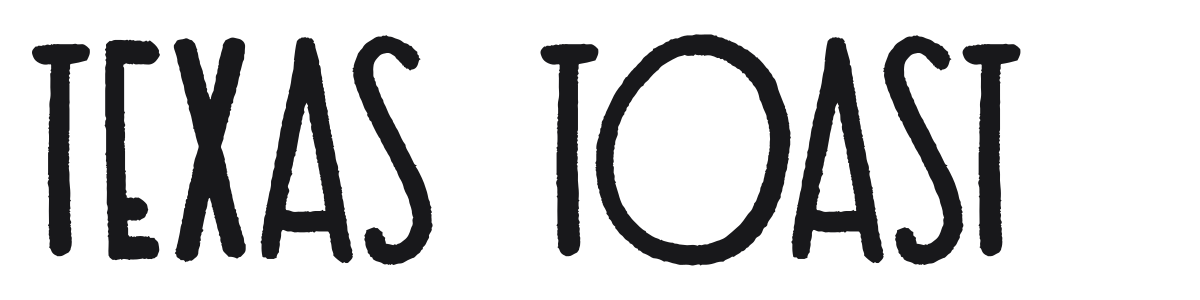
Texas Toast
Texas Toast is a tall, condensed uppercase face from MakeMediaCo. with a hand-drawn looseness that keeps it from feeling rigid despite its narrow proportions. The letterforms have a quirky, slightly wobbly quality, like someone lettered a diner sign freehand and just went with it. Best used for headlines, posters, and casual branding where you want something that reads as playful and unpretentious.